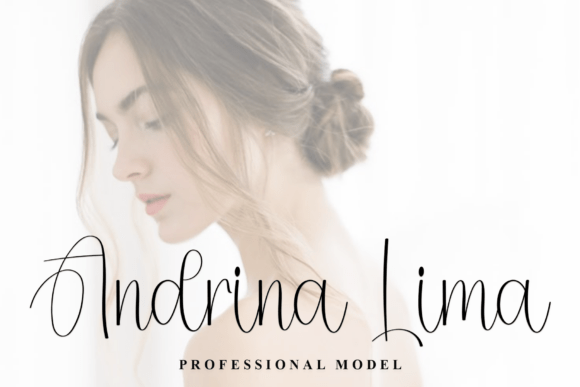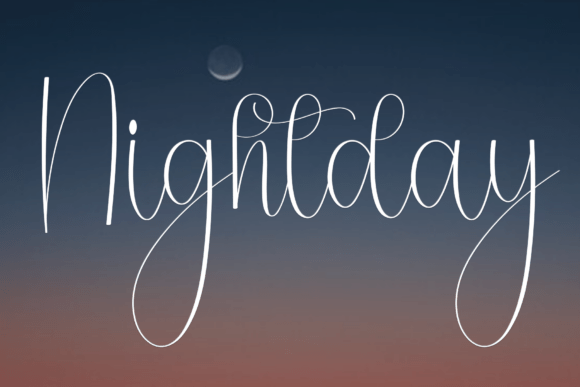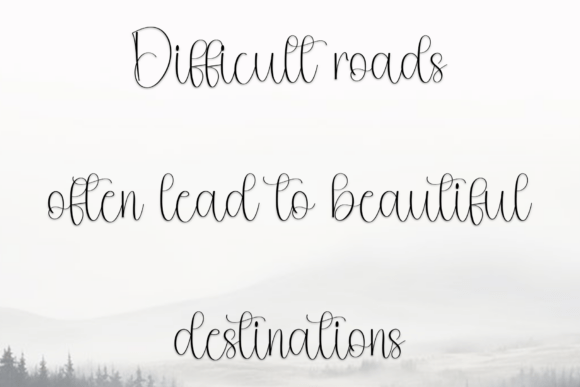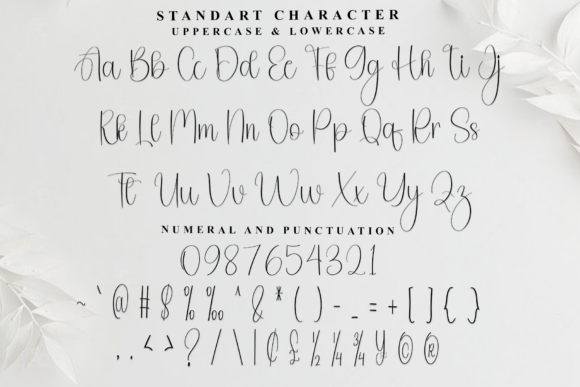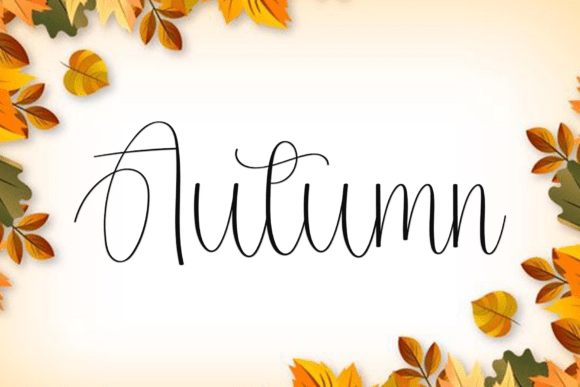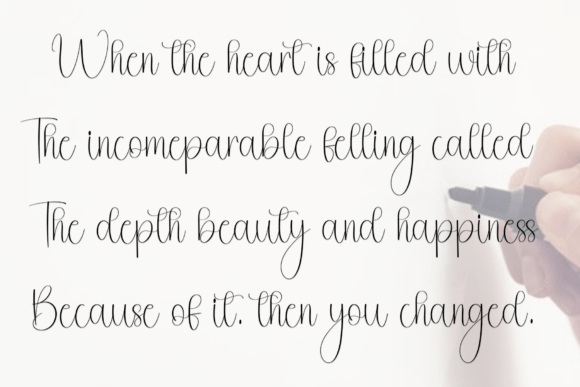
Introduction to Handmade Autography Font
Do you remember that moment when you finally landed your dream client or received a beautiful handmade wedding invitation in the mail? The feeling of excitement and joy is often sparked by the thought and effort that goes into creating something truly unique and special. For designers, this feeling is what drives us to continually seek out new and innovative design resources to elevate our creative projects. One such resource that has been gaining popularity is the Handmade Autography Font – a delicate and refined script font that exudes effortless elegance.
This beautiful font boasts thin lines and a personal handwritten charm, making it an excellent choice for branding, wedding invites, or signature-style designs. Its high-quality design and transparent background make it a valuable addition to any designer’s toolkit. Whether you’re working on a free download project or a paid design, the Handmade Autography Font is sure to bring a touch of sophistication and whimsy to your work.
Key Features of Handmade Autography Font
- Unique, hand-drawn design with a touch of imperfection, perfect for creative projects and personal expressions.
- High-quality font with transparent background, ideal for use on images or graphics with complex backgrounds.
- High-resolution design (300 DPI) ensures crisp and clear display on various mediums, from print to digital applications.
- Designed to be versatile and customizable, allowing users to adjust the font to fit their specific design needs.
- Perfect for use in a variety of creative projects, including invitations, posters, and social media graphics.
Honest Review: Handmade Autography Font
I recently had the chance to play around with the Handmade Autography Font, and I’m excited to share my thoughts with you.
- The high quality of the font is immediately noticeable. It’s perfect for creative projects that require a unique touch.
- The transparent background makes it easy to use with a variety of design elements.
- The font may be too ornate for some designs, so be sure to use it sparingly.
Overall, I’m really impressed with the Handmade Autography Font. It’s a great addition to any designer’s toolkit, and I appreciate that it’s free to download. If you’re looking for a unique font to add some personality to your creative project, I’d definitely recommend giving it a try.
To get the most out of the Handmade Autography Font, use it for creative projects that require a unique and personal touch. This font is perfect for invitations, posters, and other design elements that need a high-quality, handwritten look. You can also use it in conjunction with other design resources, such as images and graphics, to create a visually appealing design.
The Handmade Autography Font is commonly used for:
- Event posters and flyers
- Personalized greeting cards and gift tags